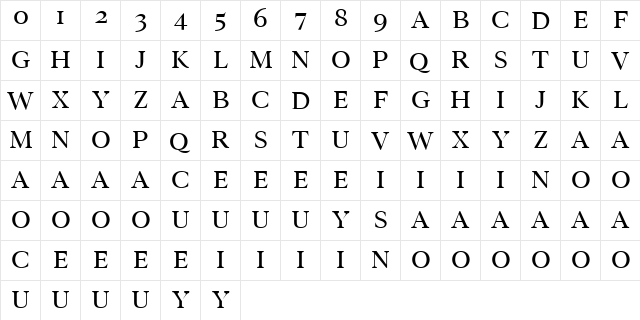
Wensley Demo Regular
| Foundry | Creativetacos |
| Designer | Faraz Ahmad |
Design Context for Wensley Demo Typeface
Wensley Demo takes a measured approach to typography — its balanced proportions and neutral character make it a reliable workhorse for both digital and print work.